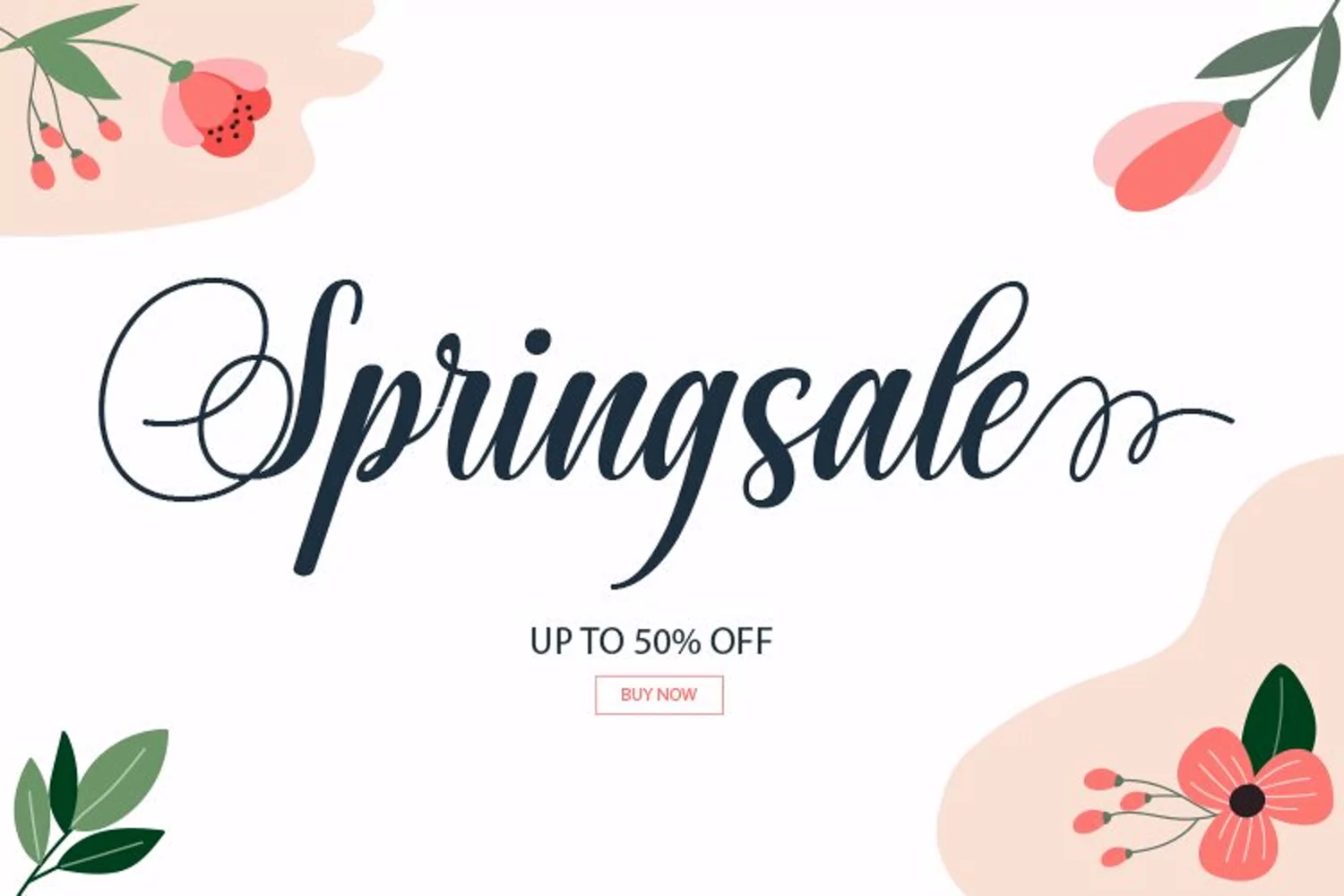
Betiya is a lovely script font featuring charming, playful characters that seem to dance along the baseline. This font is PUA encoded which means you can access all of the amazing glyphs and ligatures with ease!
Script Betiya